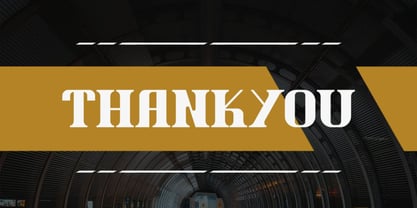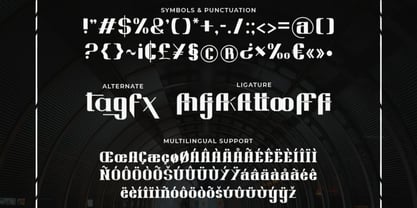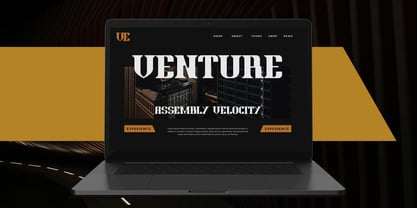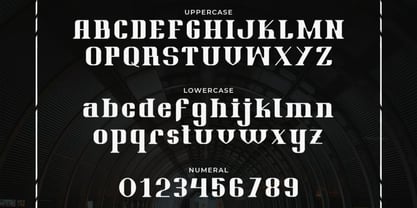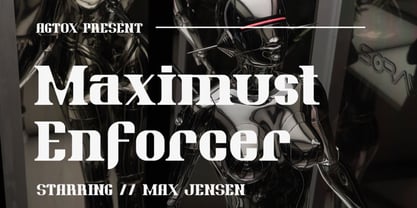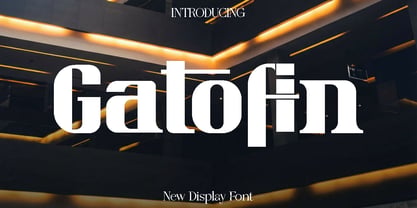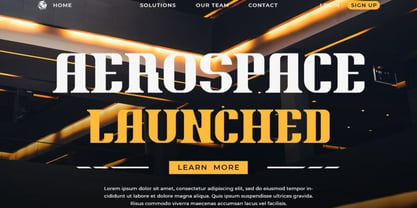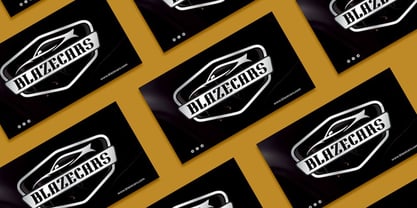
Gatofin
The Gatofin Font Family was designed by Olivia Love and published by Only Fonts. Gatofin contains 1 styles. More about this family
Gatofin – Innovative Modern Display Font Gatofin is a bold and innovative display font designed to push the boundaries of modern typography. With a vision of forward-thinking creativity, Gatofin combines striking shapes with a clean structure to deliver a powerful visual presence. Its contemporary character design reflects confidence and originality, making it the perfect choice for designers who want their work to stand out with a fresh and distinctive voice. The personality of Gatofin is energetic, modern, and expressive. Each letter is meticulously crafted to maintain clarity while delivering a strong stylistic impact, allowing your text to become a focal point in any composition. It excels in branding projects, eye-catching posters, editorial headlines, album covers, social media visuals, and tech-inspired layouts. Whether used in large titles or creative compositions, Gatofin brings a dynamic rhythm that elevates the overall design. Gatofin adapts seamlessly across both digital and print environments, giving designers the flexibility to explore a wide range of creative directions. Its bold presence makes it ideal for innovative brands, futuristic concepts, and projects that aim to communicate confidence and originality. With Gatofin, your typography transcends mere text; it becomes a visual statement that captures attention and leaves a lasting impression. Gatofin Font Features: • Uppercase and lowercase letters • Symbols, punctuation, and numerals • Ligatures and alternate characters • Multilingual support Elevate your projects with Gatofin, a display font designed to inspire bold ideas and create memorable visuals.